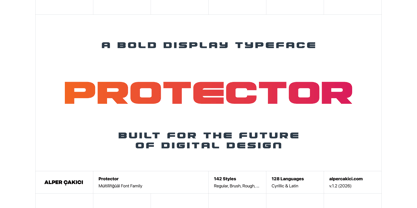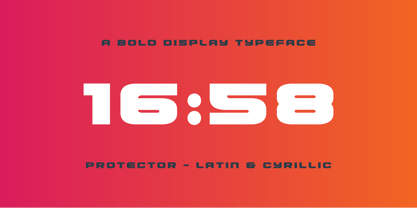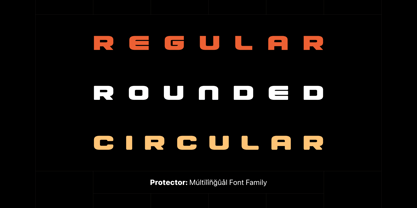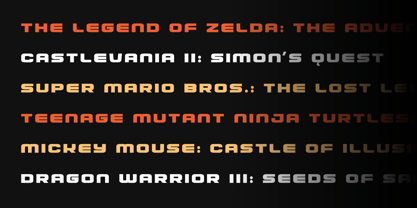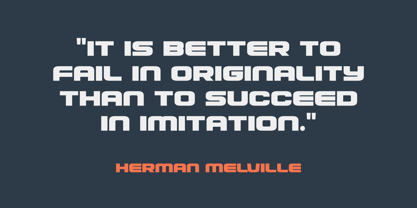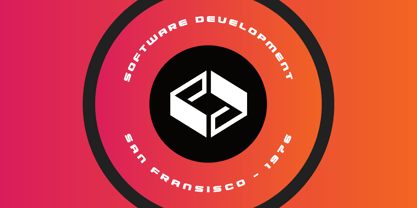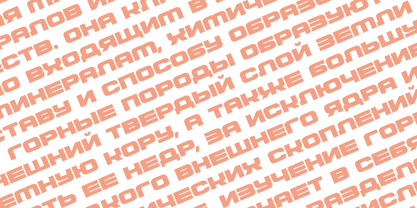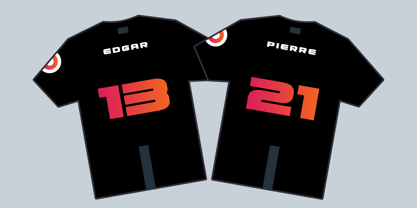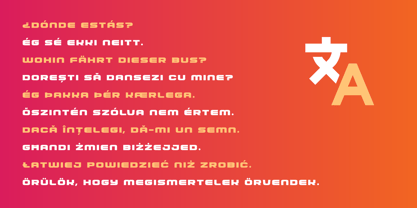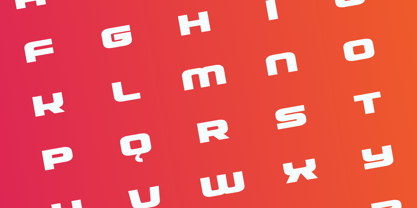
Protector
by AlperCakici
The Protector Font Family was designed by Alper Çakıcı and published by AlperCakici. Protector contains 142 styles and family package options. More about this family
Protector is a massive futuristic display typeface family designed by Alper ÇAKICI. With its bold, wide structure, it supports both Latin and Cyrillic languages, delivering a powerful sci-fi and industrial aesthetic perfect for branding, posters, gaming, film titles, logos, apparel, UI design, packaging, and editorial work. Featuring 142 font styles and 505 glyphs, the family includes Regular, Rounded, Circular, Outline, Inline, Shadow, Rimmed, Traced, Chalk, Brush, Grainy, Gritty, Rusty, Sketchy, Worn, Pencil, Dry, Edgy, Hazy, and many more textured variations, along with matching italics and shaded versions. This extensive stylistic range empowers designers to create everything from clean cyberpunk interfaces to distressed retro-futuristic visuals while maintaining a consistent visual identity. Protector combines geometric precision with aggressive proportions, making it ideal for high-impact headlines, esports branding, futuristic movie posters, technology brands, album covers, automotive graphics, and experimental typography projects. Its layered and textured styles provide exceptional flexibility for creating depth, motion, and unique visual effects without the need for additional graphic processing. Whether you require a clean sci-fi display font, a rugged industrial texture, or a layered futuristic logo system, Protector offers an enormous toolkit for modern creative projects.